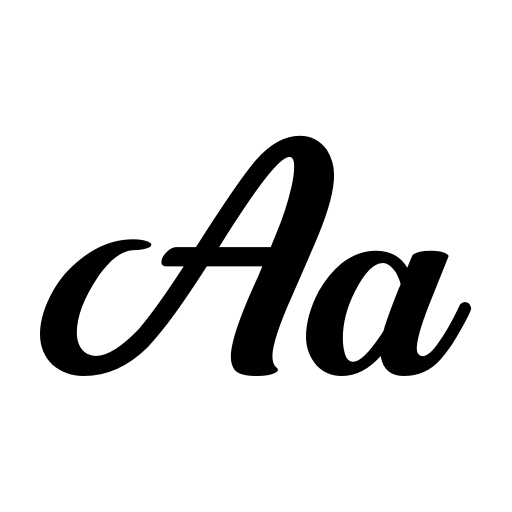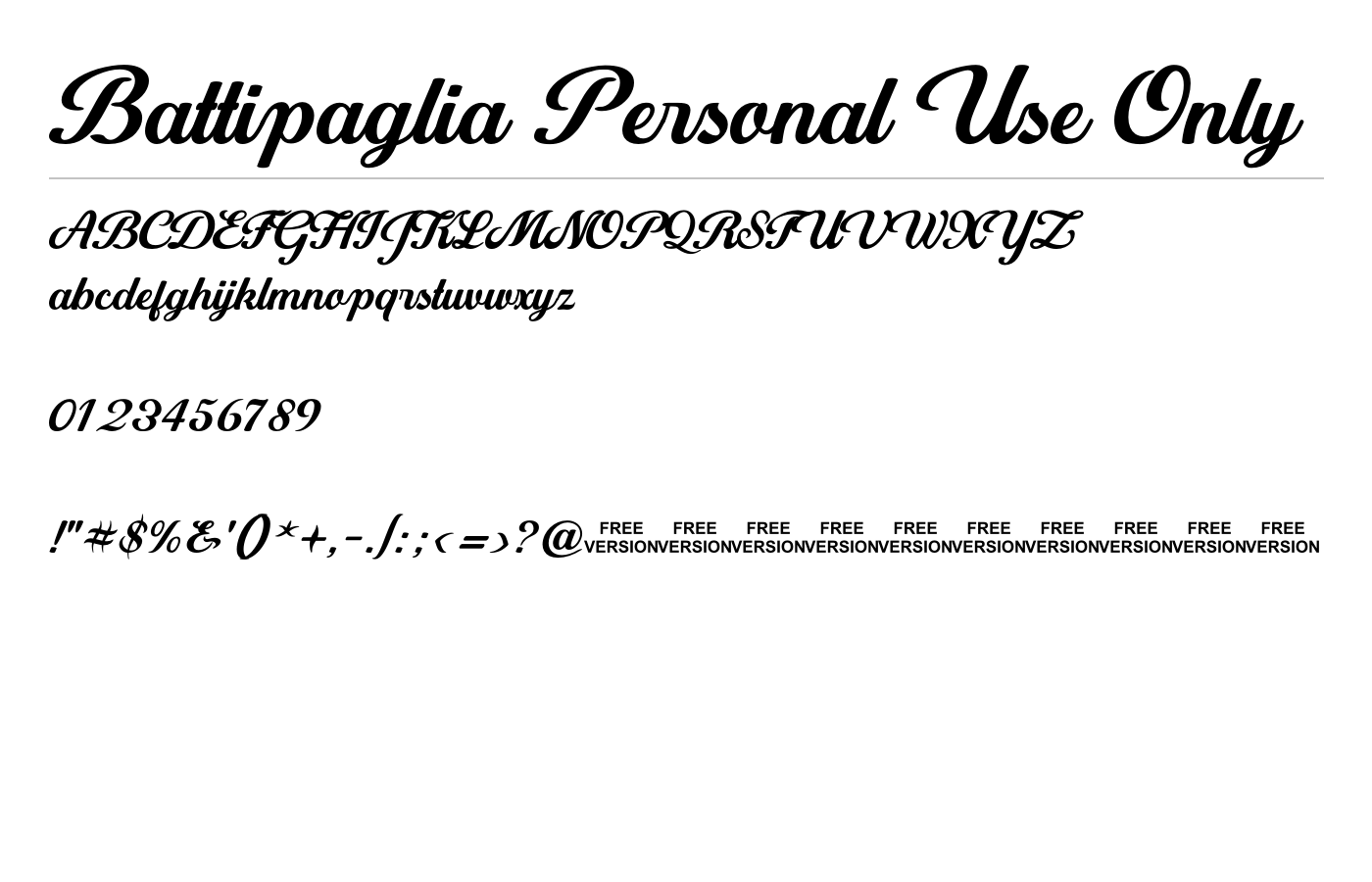
Battipaglia Personal Use Only is an elegant script font with a smooth, flowing style that combines classic sophistication with a friendly charm. Its medium weight and cursive letterforms feature gentle curves and moderate contrast, making it ideal for fashion branding, invitations, and logos that require a refined, personal touch. This font stands out with its graceful uppercase and lowercase letters, making it perfect for stylish headlines and decorative text.